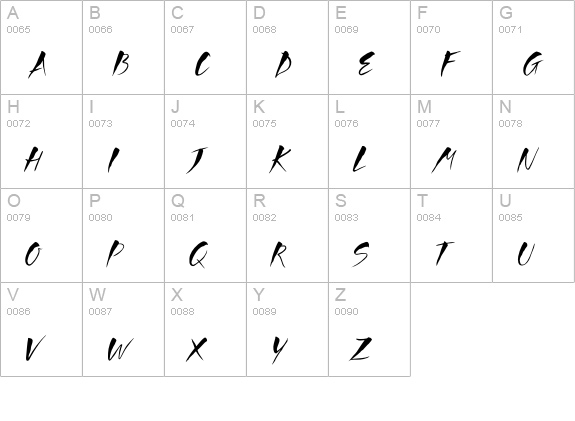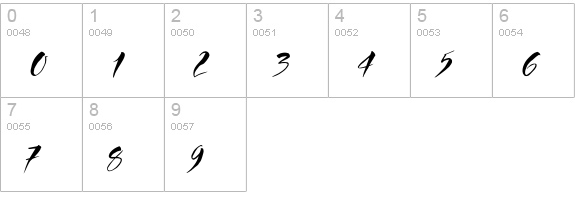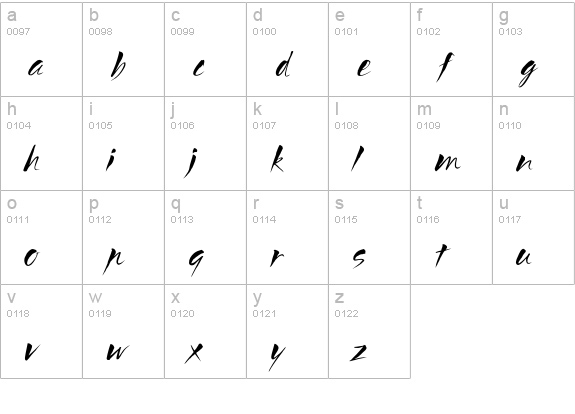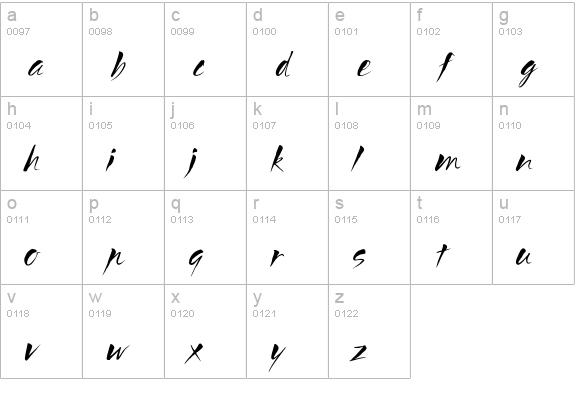
DuMifu Font Details
Introducing DuMifu font, a modern and stylish typeface that is sure to elevate your design projects to the next level. With its sleek lines and elegant curves, DuMifu is perfect for a wide range of applications, from branding to packaging to social media graphics. What sets DuMifu apart is its versatility - it can be used for both headline text and body copy, making it a go-to choice for designers looking for a font that can do it all. The clean and contemporary look of DuMifu will add a touch of sophistication to any project. Best of all, DuMifu is completely free to download at FontsMarket.com. So why wait? Give your designs the edge they deserve with the beautiful and versatile DuMifu font today!